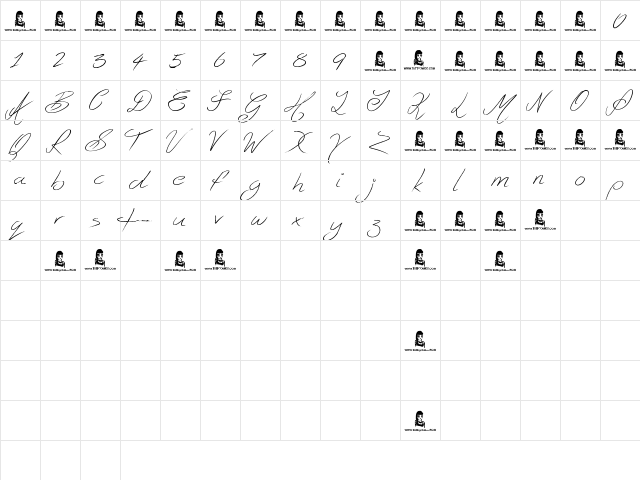
Ghosting Regular
| Foundry | TattooWoo |
| Designer | Jonathan S. Harris |
Design Context for Ghosting Typeface
Ghosting is a composed and adaptable typeface that performs quietly and consistently across a wide range of design contexts.